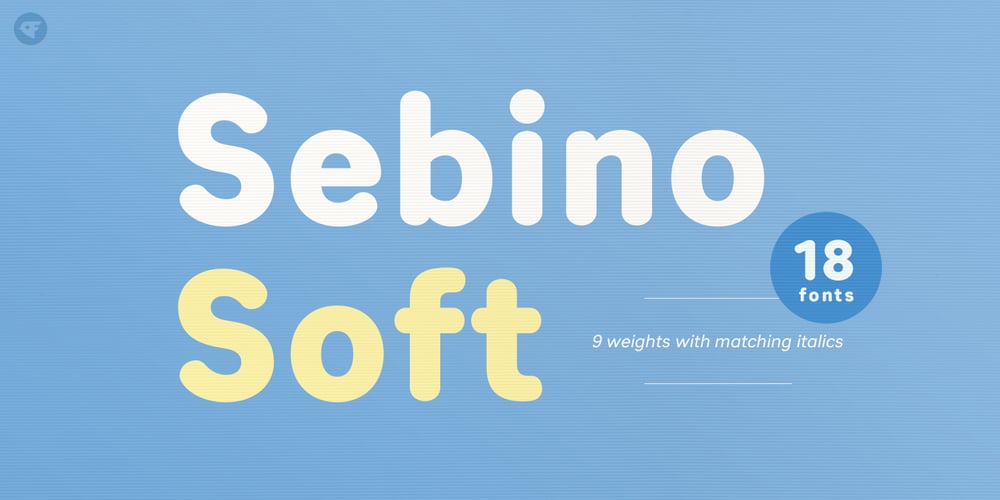
Sebino Soft Font Family was designed by Paul Chen and published by Nine Font. Sebino Soft contains 18 styles and family package options. Sebino Soft family is a rounded version of Sebino. It is a neutral sans-serif type family with 9 weights, from thin to black, with corresponding italics. Sebino Soft has a large x-height with open apertures which make texts more legible at small sizes. Each font includes OpenType Features such as Proportional Figures, Tabular Figures, Numerator, Superscript, Subscript, Case-Sensitive, Denominators, Scientific Inferiors, Ordinals, Ligatures and Fractions. Sebino Soft will make your artworks better with its clean & clear shapes.